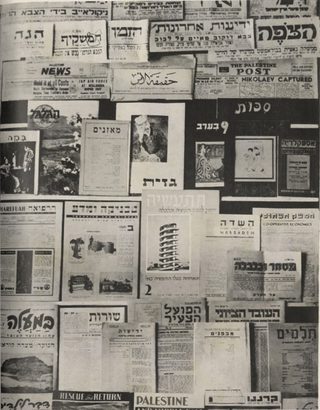
Hebrew type anatomy
Shani Avni, type designer and researcher with a focus on Hebrew type design, investigates and suggests a nomenclature for Hebrew type anatomy.
Anatomy Poster Design
Understanding type anatomy can be complex and intimidating. But getting to know all the letters parts is good for improving typographic skills. Shani Avni, type designer and researcher with a focus on Hebrew type design, investigates and suggests a nomenclature for Hebrew type anatomy.
Modern Hebrew developed from the Aramaic or Assyrian alphabet around 560 BCE. It is a single case alphabetic script consisting of 22 letters and 5 additional final forms. Written from right to left it is used for Hebrew, Yiddish, and Ladino. One of its distinguishing features is its square-like forms, having very few ascending and descending strokes.
The development of the Hebrew script took a unique course largely due to the fact that Jewish tradition perceived its alphabet as sacred. The Hebrew letterforms were considered to be divine and to carry a complex religious meaning. Since the second century BCE and for centuries to come, Hebrew was mostly confined to religious use and only qualified devout scribes were permitted to write religious manuscripts under strict rules.
The invention of movable type in the 1440s was welcomed with relative enthusiasm by Jewish communities that were scattered in Europe among other nations. As religious Hebrew manuscripts played a central role in their lives, printing them instead of copying them by hand increased the production and distribution of these texts and contributed to Hebrew readership. However, the Jewish communities suffered persecution repeatedly and were often forced to flee and relocate their presses, which prevented the continuous natural development needed for the refinement of type. With the Jewish punchcutters facing these social and political obstacles, it was the non-Jewish punchcutters who made significant contributions to the improvement of the Hebrew type.
In the late 18th century Hebrew began its journey away from the traditional religious confines and toward its revival as a common, spoken, everyday language. Over time a wide range of new Hebrew texts were produced in Europe and in Palestine, from biblical stories to original literature, translations of European classic and modern literature, and newspapers.
Palestinian newspapers and periodicals from the mid 1940s. From: Hobman J.B. (ed). Palestine‘s economic future: a review of progress and prospects, with a message from Field Marshal Smuts, London: Percy Lund Humphries, 1946. p. 245.
Those printed items required new Hebrew typefaces, that would accommodate the scope of printing as well as reflect the secular nature of its content. The demand for new Hebrew typefaces grew stronger around the 1950s with the declaration of Israel as a state. Around that time Jewish-Israeli type designers of European descent who were deeply familiar with the Hebrew script and language introduced new and groundbreaking designs.
Considering the fact that Hebrew printing largely evolved in Europe, it is not surprising that Hebrew type has developed mostly using Latin terminology to describe its anatomy. However, this terminology describes the specific structure of Latin characters and is inaccurate for describing Hebrew characters. For example, the Hebrew instroke is commonly called a serif. While visually resembling the shape of a Latin serif, it is constructed in a completely different manner: it is originally a stroke of a blunt reed pen traveling inward from left to right, creating a triangular shape at its beginning. When Hebrew was applied to stone carving, the characters did not undergo a mechanical adaptation to the material and tools as the Latin characters did. Contrary to the Latin, Hebrew did not include the deliberate and calculated work of expert stone-cutters that led to the use of serifs, but rather kept their written form.
Portion of the Isaiah Scroll, labeled 1QIsaa, one of the longest of the Dead Sea Scrolls, 2nd century BC, The Israel Museum’s Dead Sea Scrolls Digital Project. (Photographs by Ardon Bar Hama via Wikimedia Commons).
Hebrew inscription from King Uzziah’s grave: “Hence Were Brought the Bones of Uzziah, King of Judah…” Images, n.d. c.580 B.C. Courtesy of Artstor.
Nomenclature and type anatomy
While efforts to create a new professional Hebrew vocabulary were reflected in early 20th century articles, books, and dictionaries dedicated to printing and graphic arts glossaries, it seems none included typographic terms for the purposes of type design. The Hebrew type terms that are being used today are borrowed from different disciplines such as paleogeography, calligraphy, and religious scribal practice. Therefore, nomenclature is fairly inconsistent: a single term may be interchangeably described by several words that carry different meanings (for example, a character’s instroke is referred to as a sting, a thorn, a tag, or a serif); other terms are too specific as they apply only to a single character; some terms are antiquated and therefore confusing; some terms correlate with the human anatomy, but are used interchangeably in counterintuitive placements (for example, using the term “heel” to describe both bottom and top parts of a letter); some terms refer to construction: beam, pillar, roof; some terms are directly translated from English and some are merely transliterated.
The need for a coherent description of Hebrew type anatomy is growing, paralleling the rising interest in type design for global scripts. Hopefully this interest will generate additional academic resources and stimulate a discourse in search of accurate language that would support future practices.